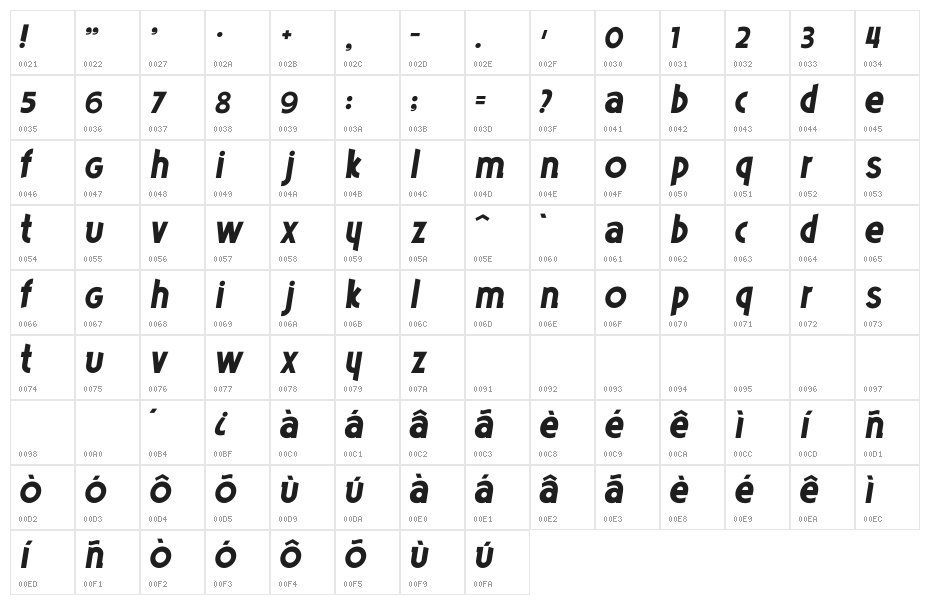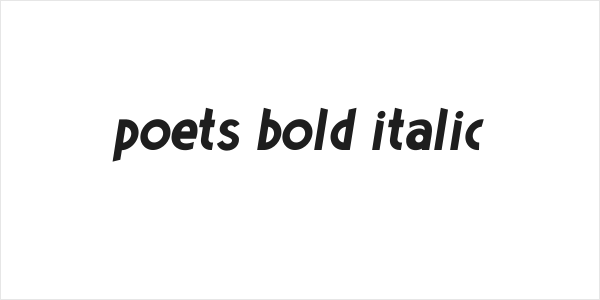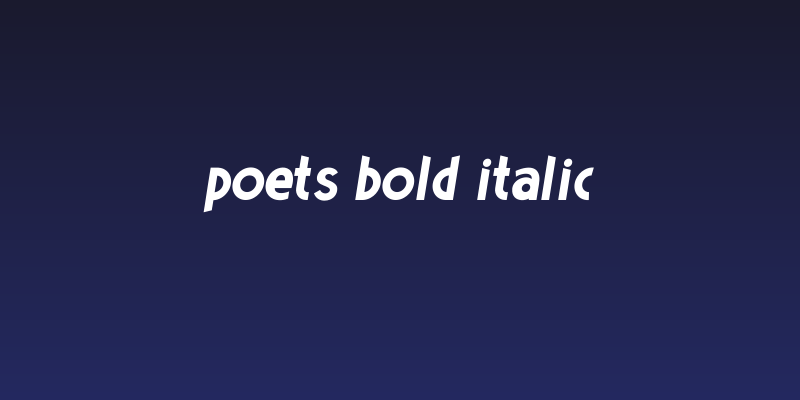
Poets Bold Italic Font
Poets Bold Italic Description
This typeface features a bold and italicized style, characterized by its strong and dynamic appearance. The letters are slightly slanted, adding a sense of movement and energy to the text. The strokes are thick and consistent, providing a robust and impactful look. The font maintains a modern and clean aesthetic, making it suitable for various design applications. The numerals and special characters are designed to match the bold and italicized style, ensuring a cohesive appearance across all text elements. The overall design is versatile, allowing it to be used in both digital and print media.